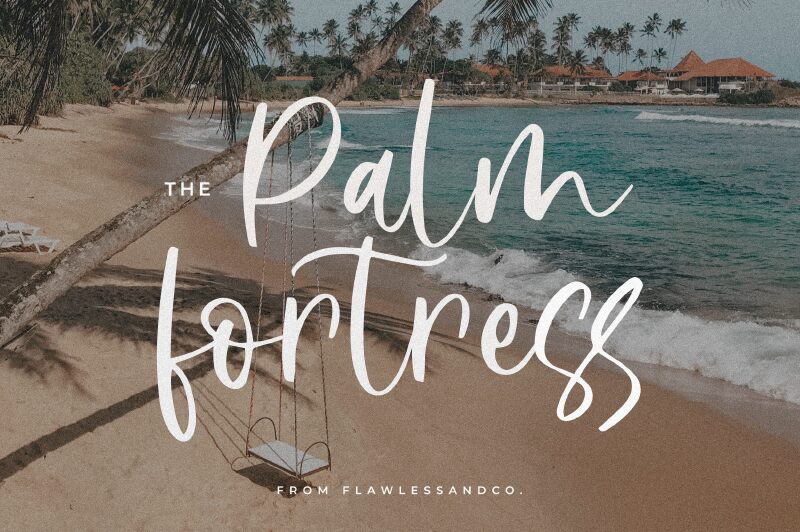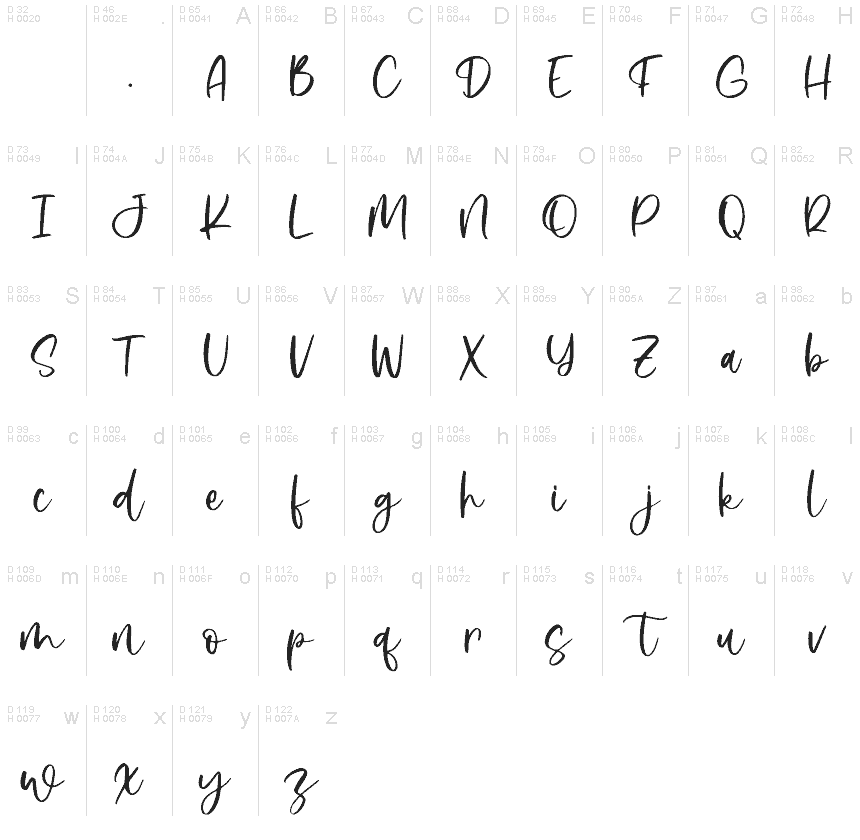
Palm Fortress Regular
Palm Fortress font by Achmad Yani is a free handwritten font that infuses a sense of casual elegance and artistic flair into its design. Expressive and flowing, this contemporary font exudes a personalized touch that easily captures attention. Its authenticity makes it perfect for various creative projects where originality and personality are key.
Explore Palm Fortress by making it part of your logo designs, invitation cards, planners, diaries, socials posts or stories. It can feature on the packaging of clothing brands or personal accessories. Template posts, banners, brochures made as promotional materials are also suitable use cases with Palm Fortress font.